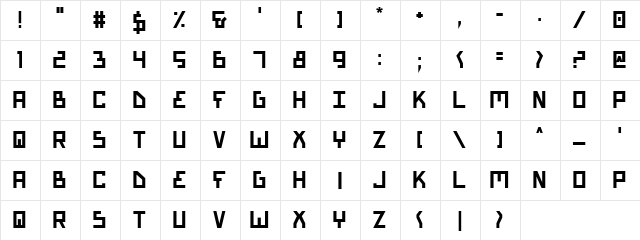
Bionic Type Bold Bold
Design Context for Bionic Type Bold Typeface
Bionic Type Bold is a composed and adaptable typeface that performs quietly and consistently across a wide range of design contexts. The heavy weight commands attention and anchors typographic hierarchies.